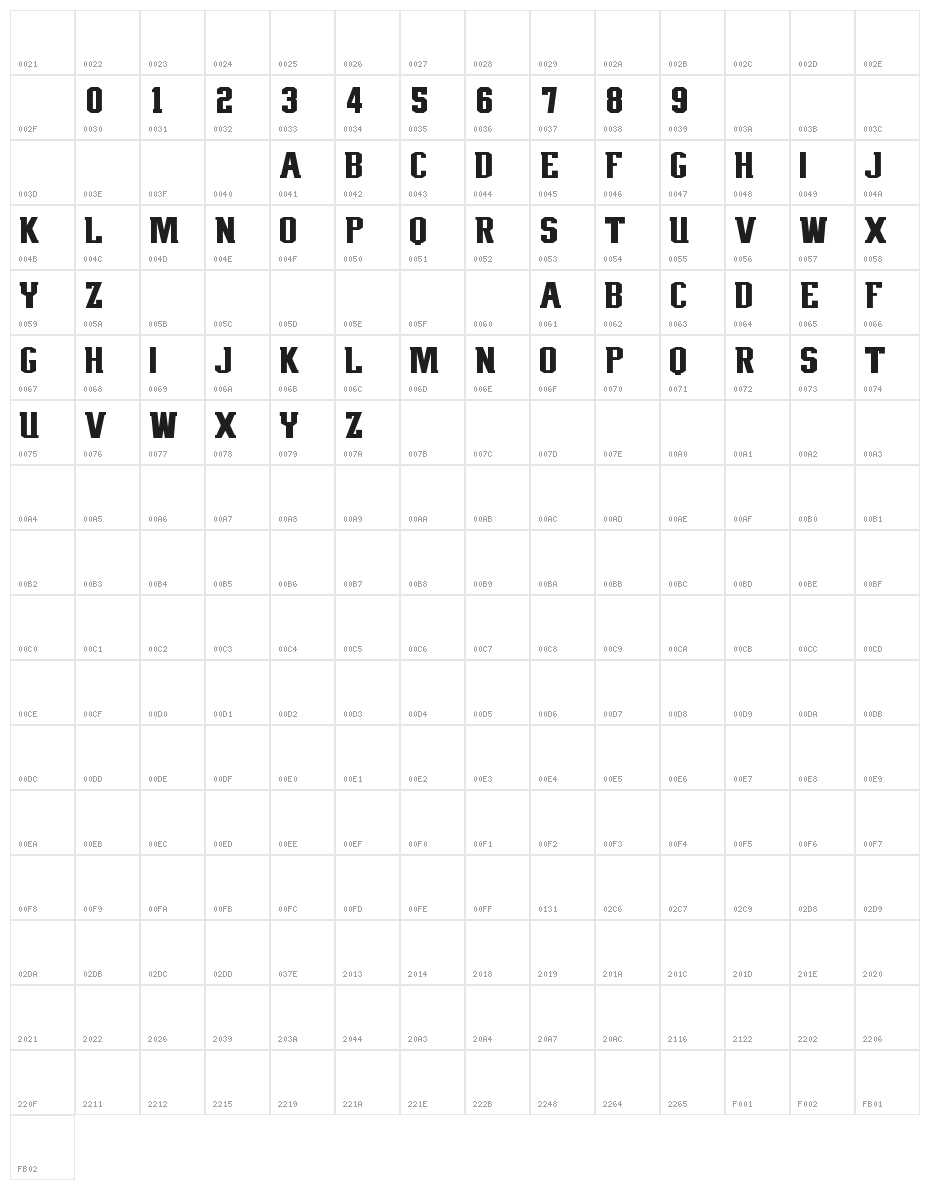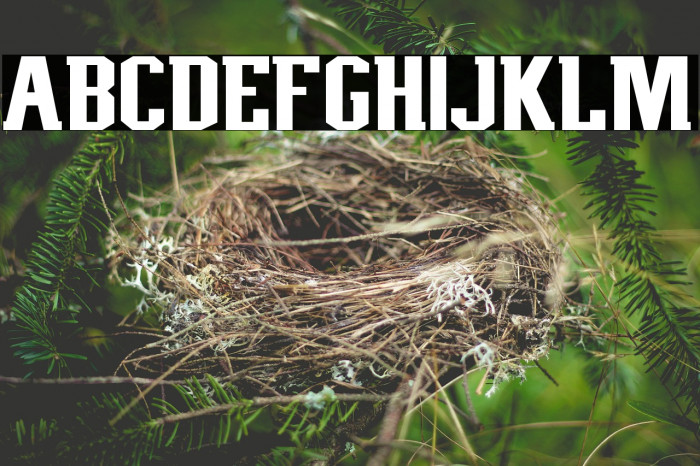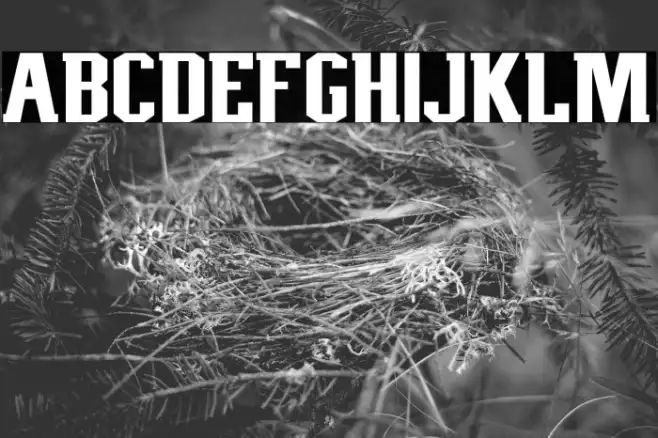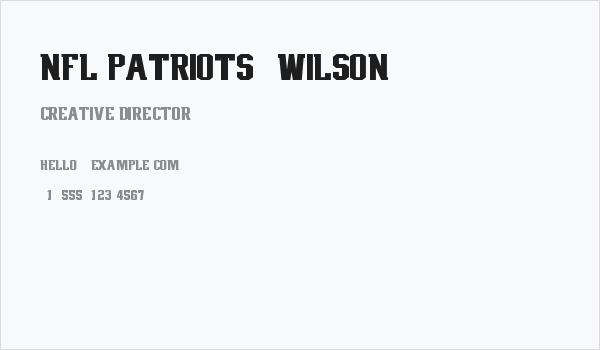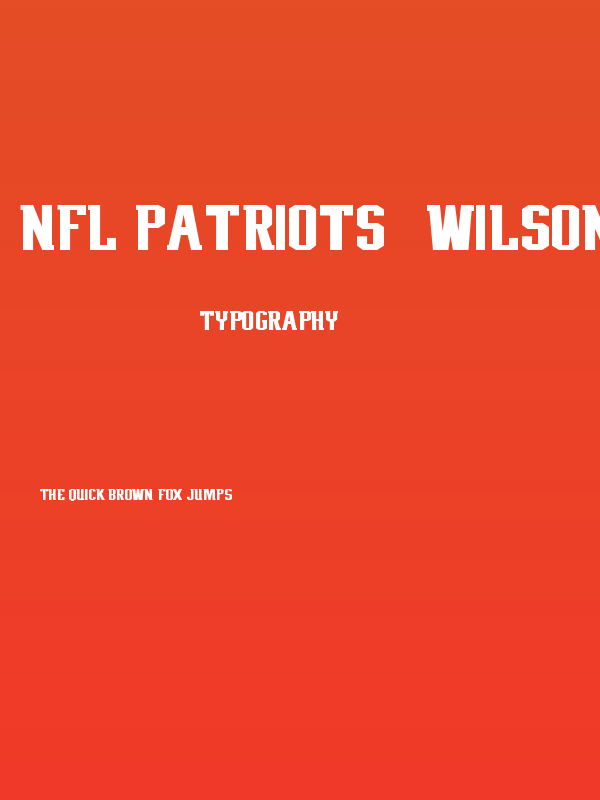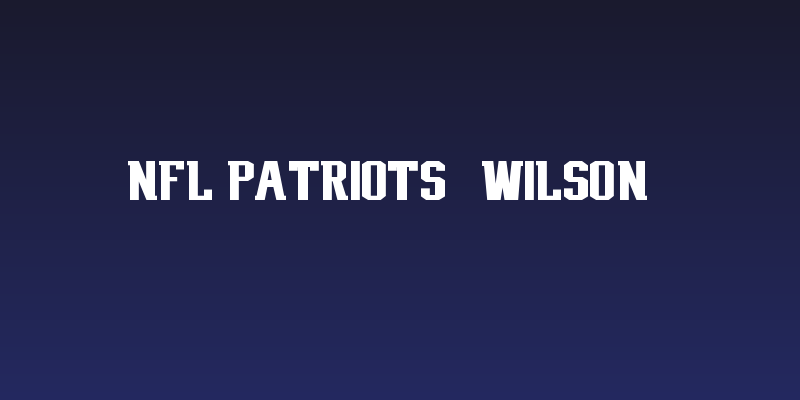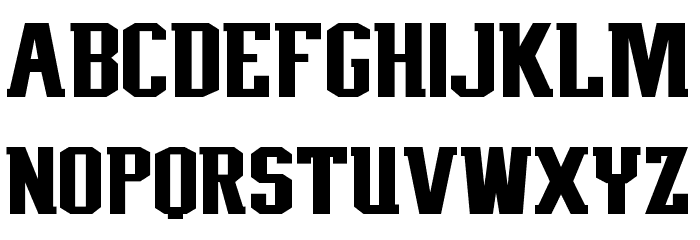
NFL Patriots (Wilson) Font
NFL Patriots (Wilson) Description
This font features bold, blocky characters with a strong, athletic aesthetic. The uppercase letters are uniform in height and width, creating a cohesive and powerful look. The characters have a slightly condensed appearance, with sharp angles and clean lines that convey a sense of strength and precision. The numbers are equally robust, maintaining the same bold style as the letters. This font is ideal for sports-related designs, offering a commanding presence that demands attention. Its geometric structure and solid form make it suitable for headlines and branding that require a bold statement.
| Proposed Projects | Sports team branding, athletic event posters, merchandise design, and sports-themed advertising. |